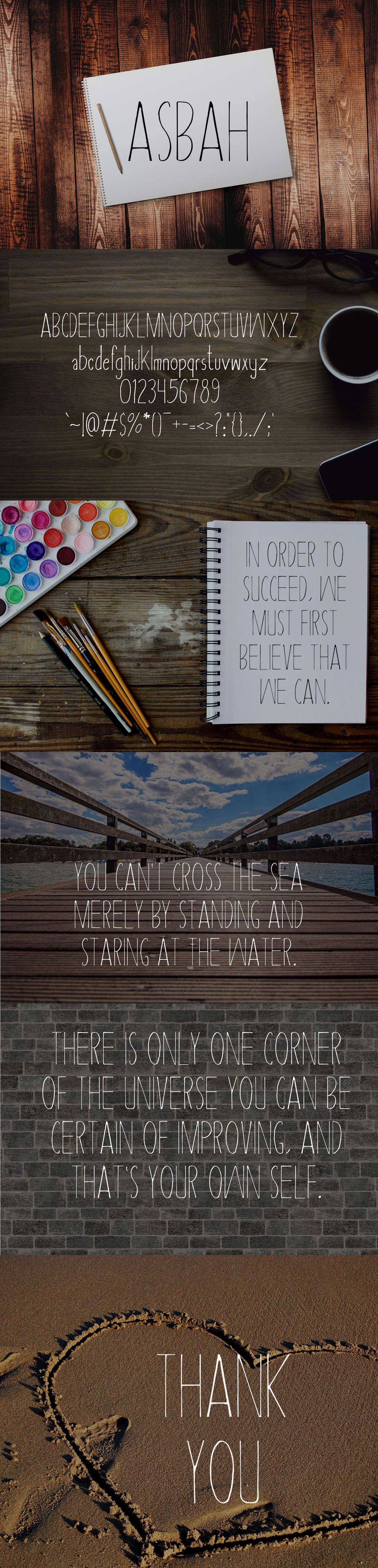
Asbah Serif Font
Asbah Serif is the perfect font to create sleek and elegant headlines and female website logo designs. It pairs well with both script and sans-serif fonts.
- Numbers & Symbols